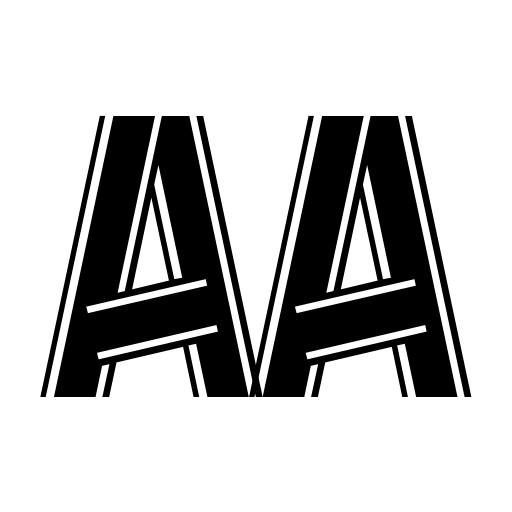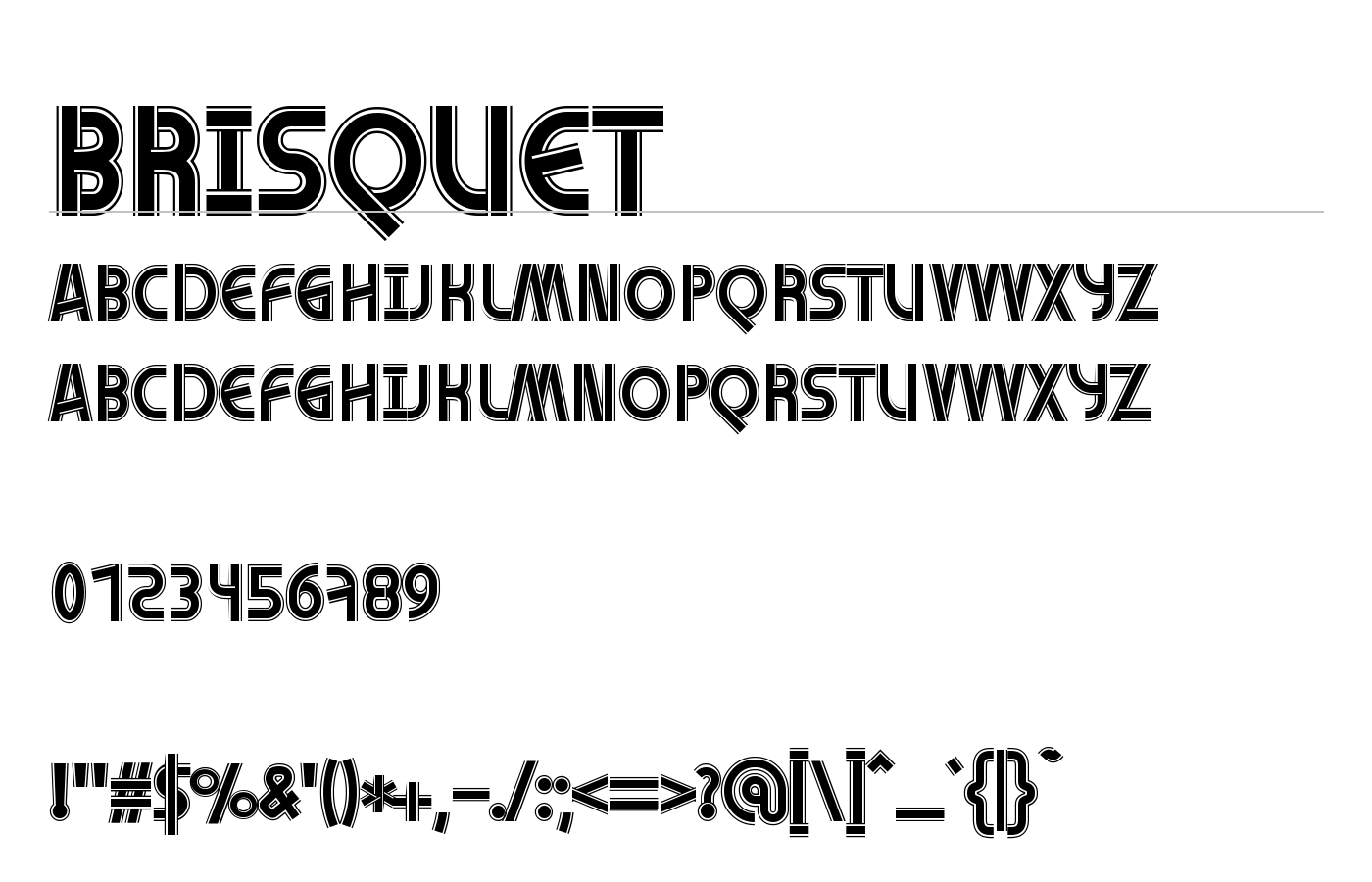
Brisquet is a bold, decorative sans serif font with a strong Art Deco influence, featuring clean geometric shapes combined with layered lines that create a stylish, dimensional effect. Its uppercase-only design with pronounced stroke contrasts and unique character details, like the angled tail on Q and the multi-line effect, gives it a vintage yet modern flair perfect for eye-catching headlines and branding projects seeking a classy, retro vibe. This font shines in logos, posters, and packaging where a distinctive, elegant look is needed to stand out.